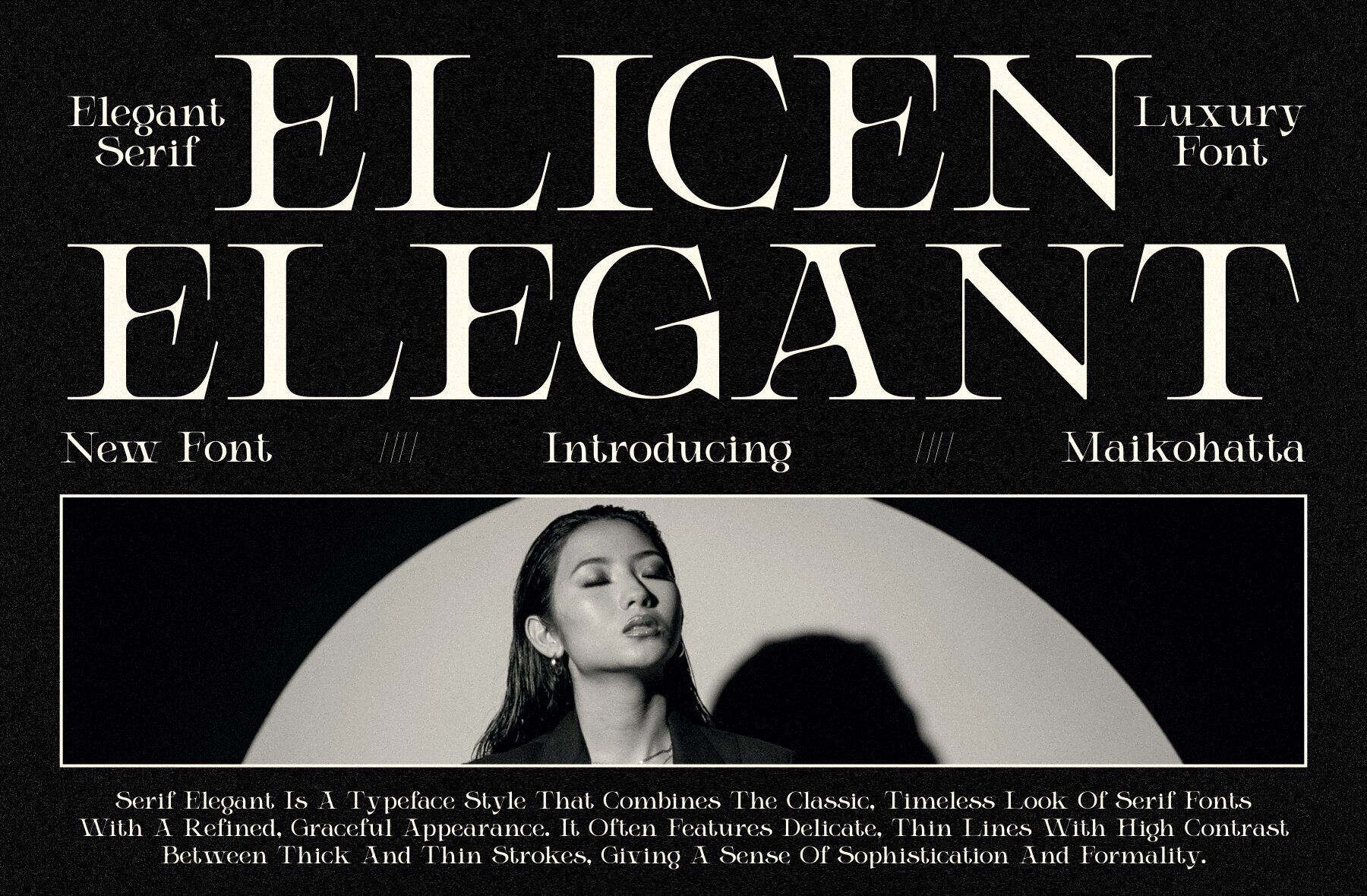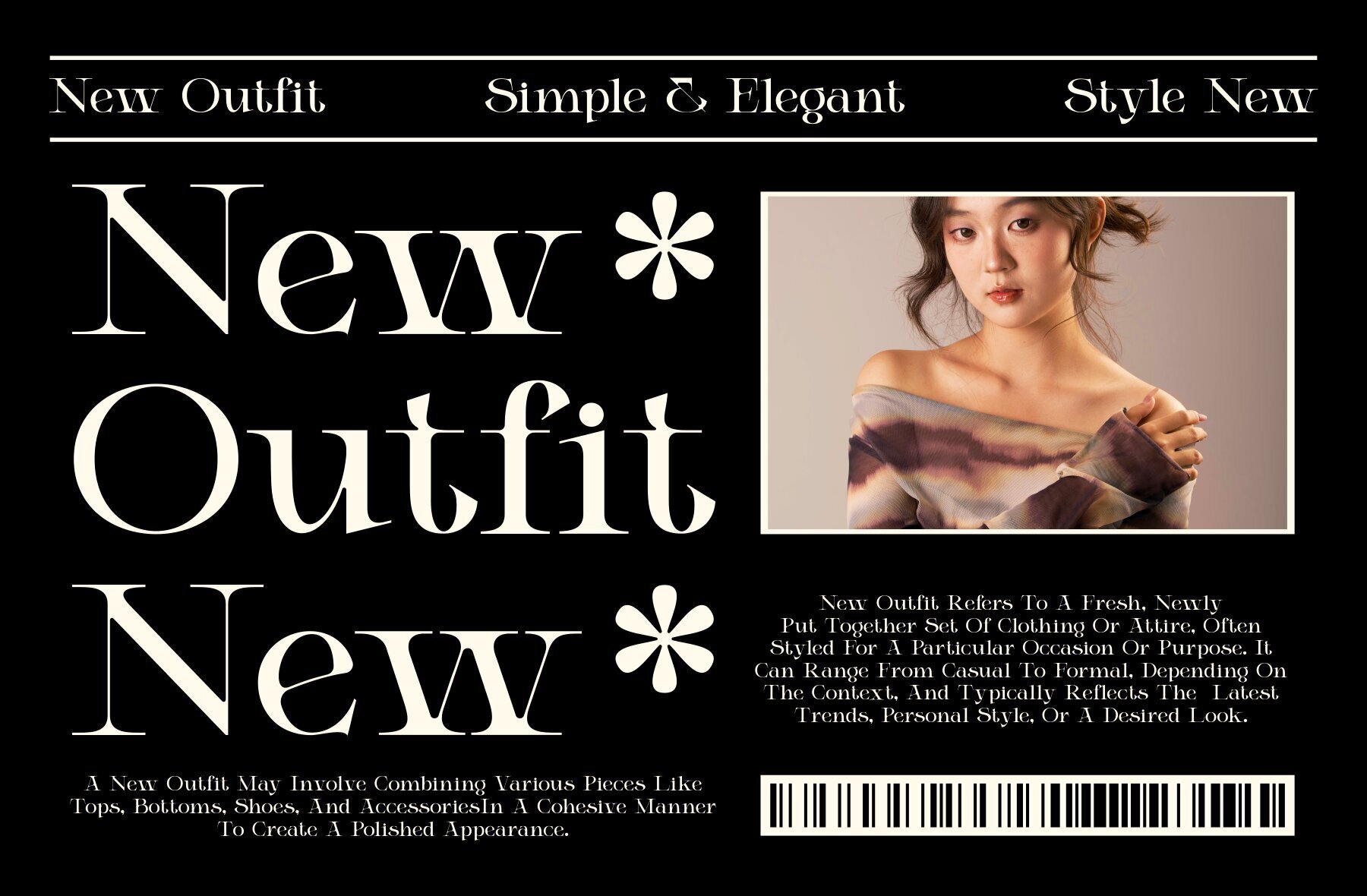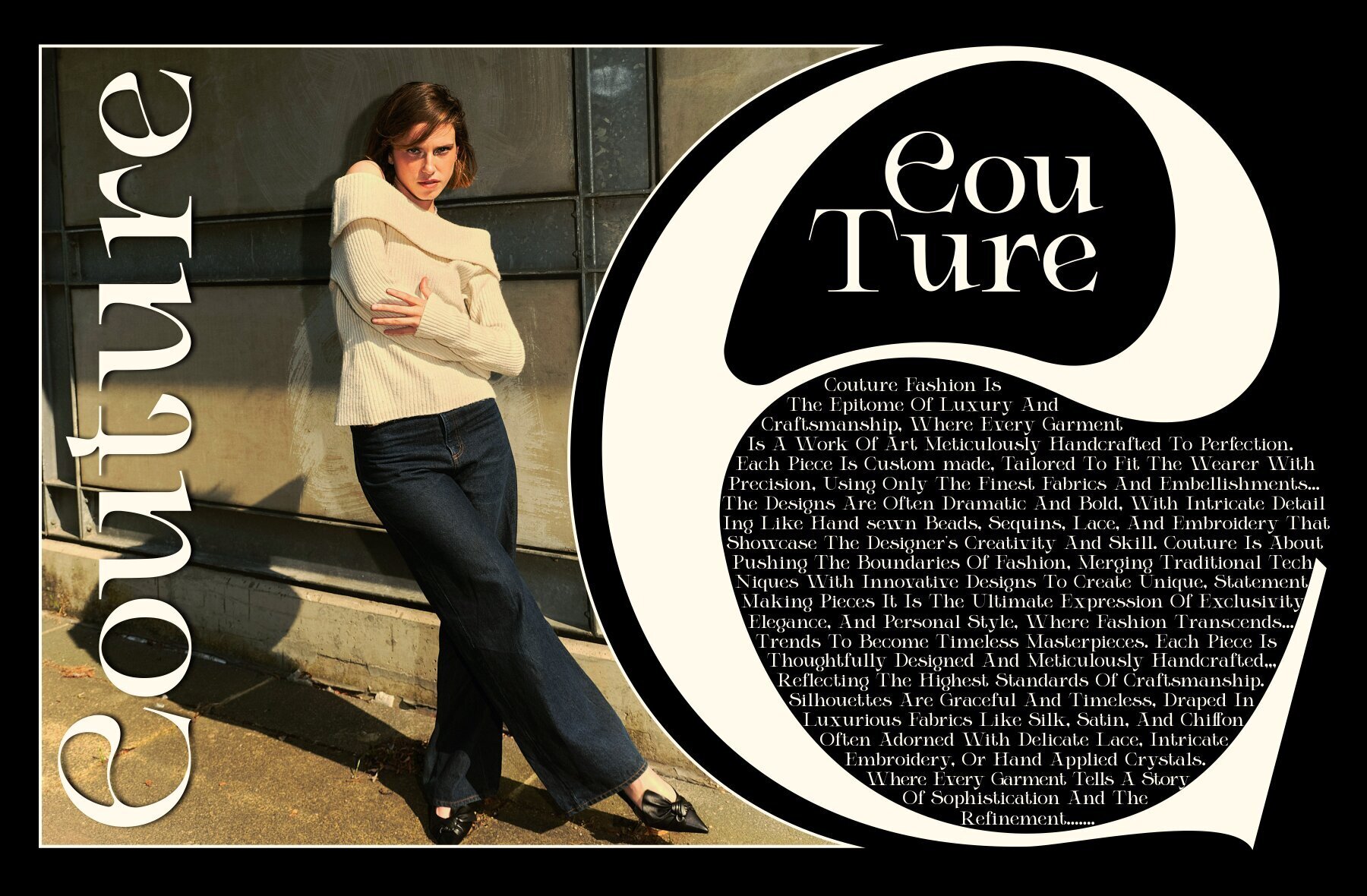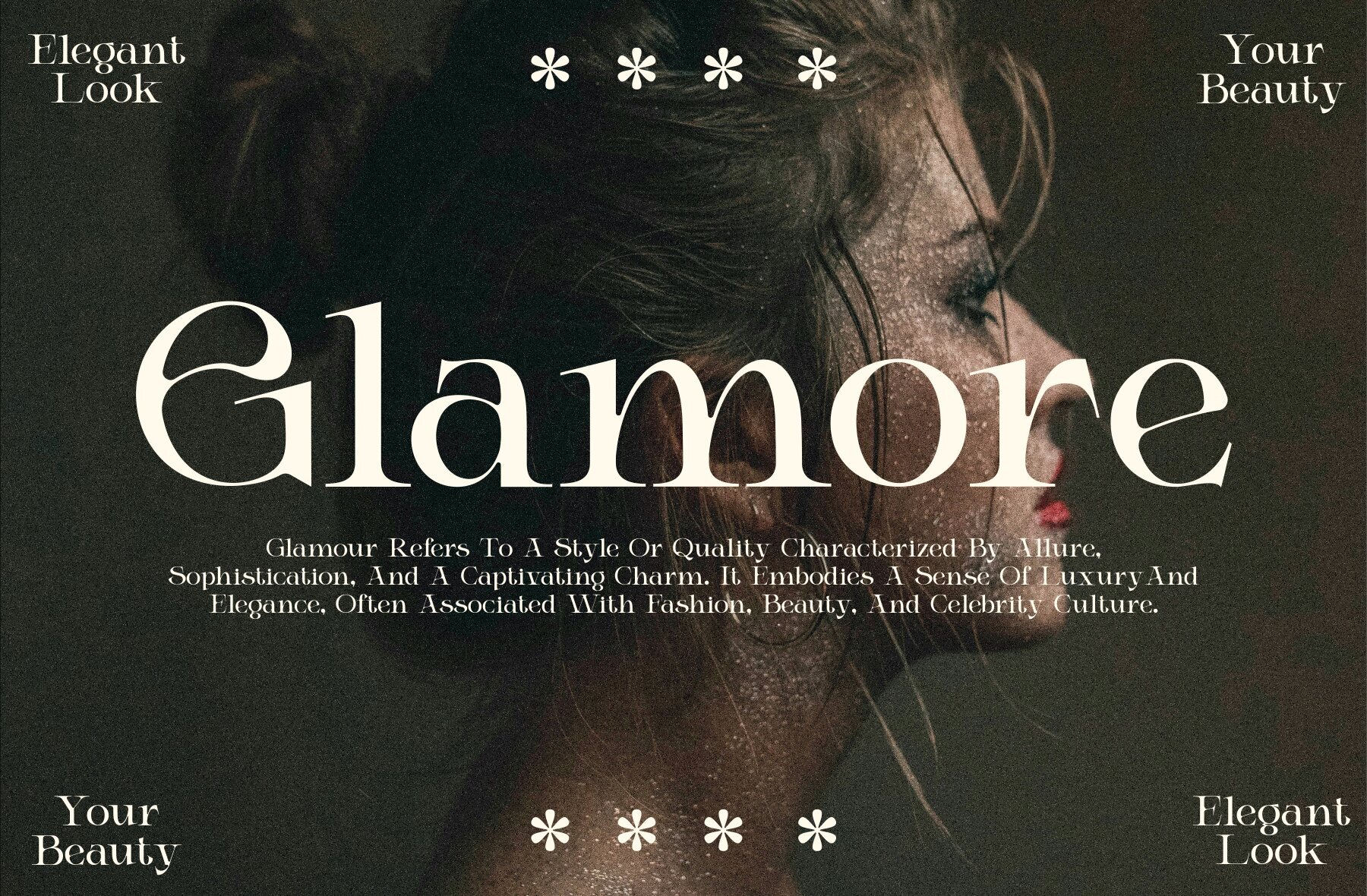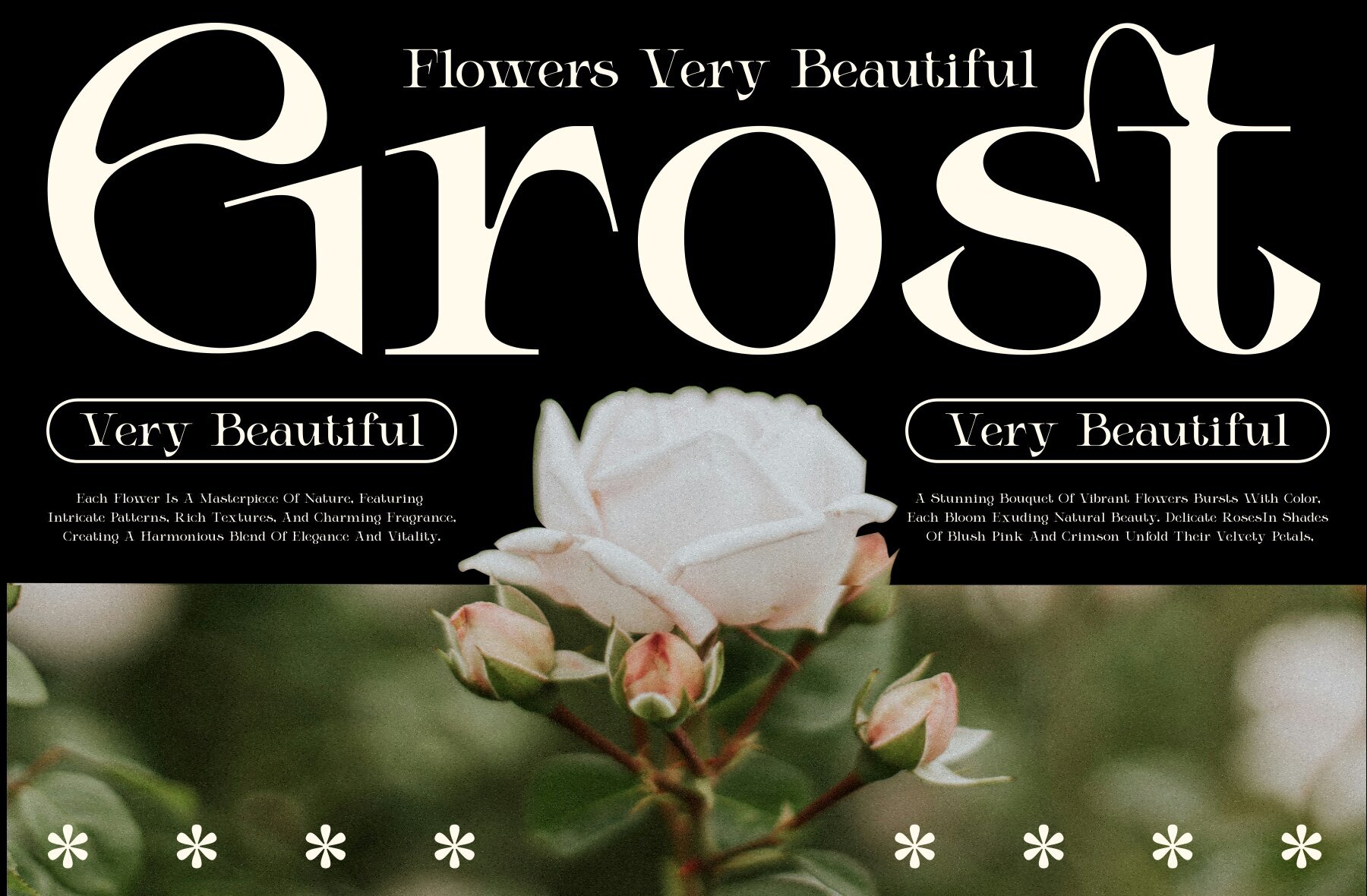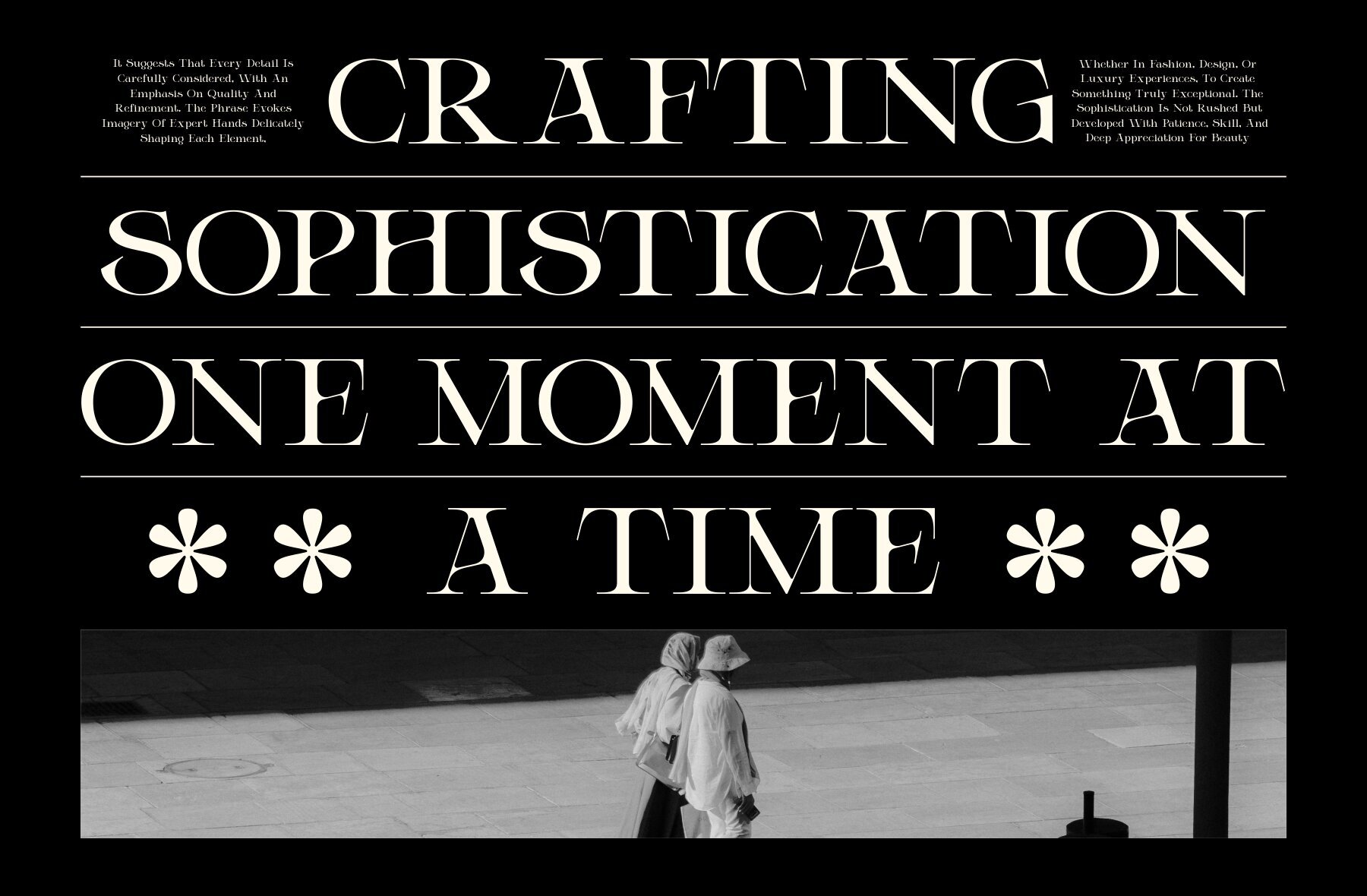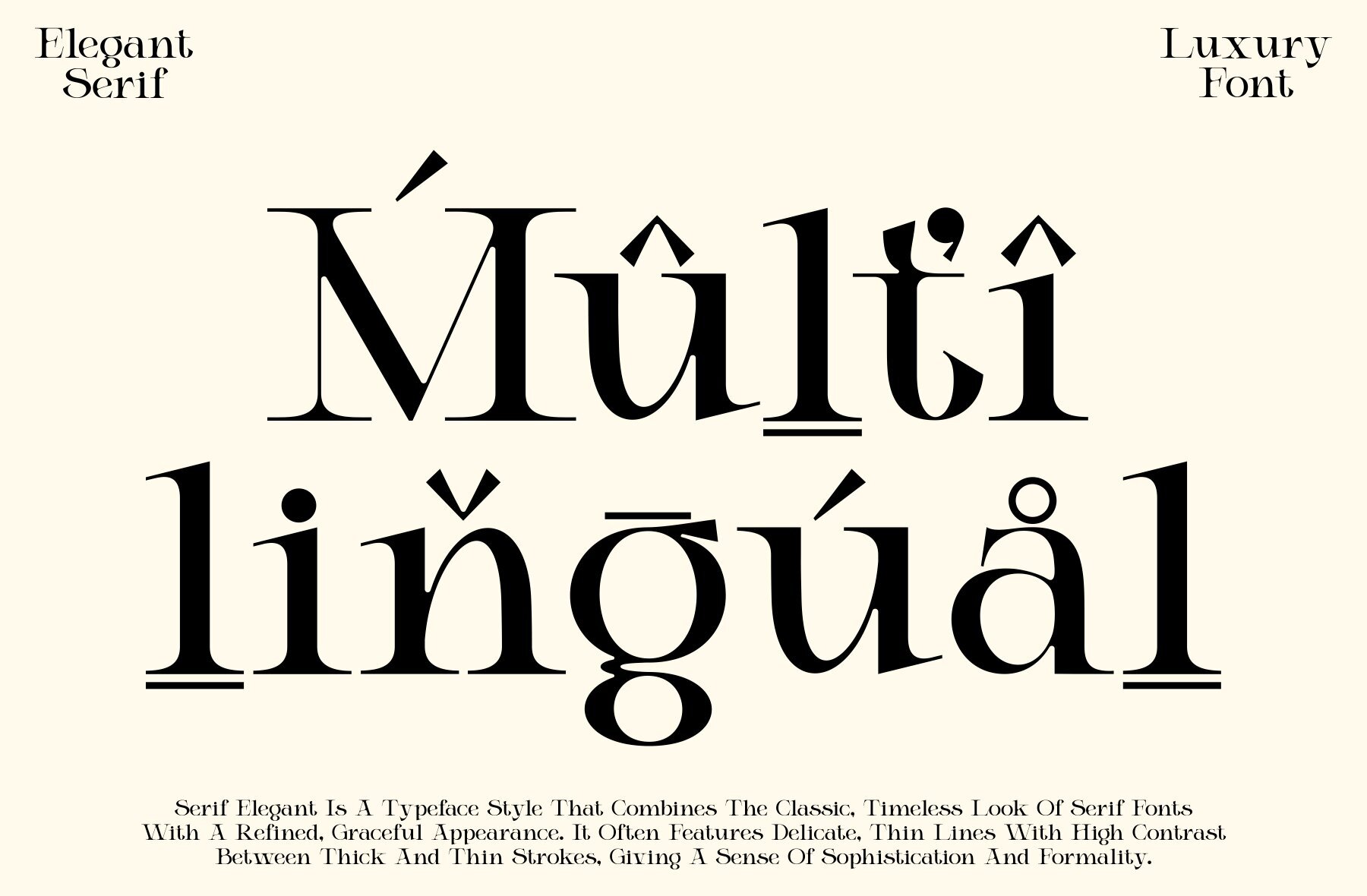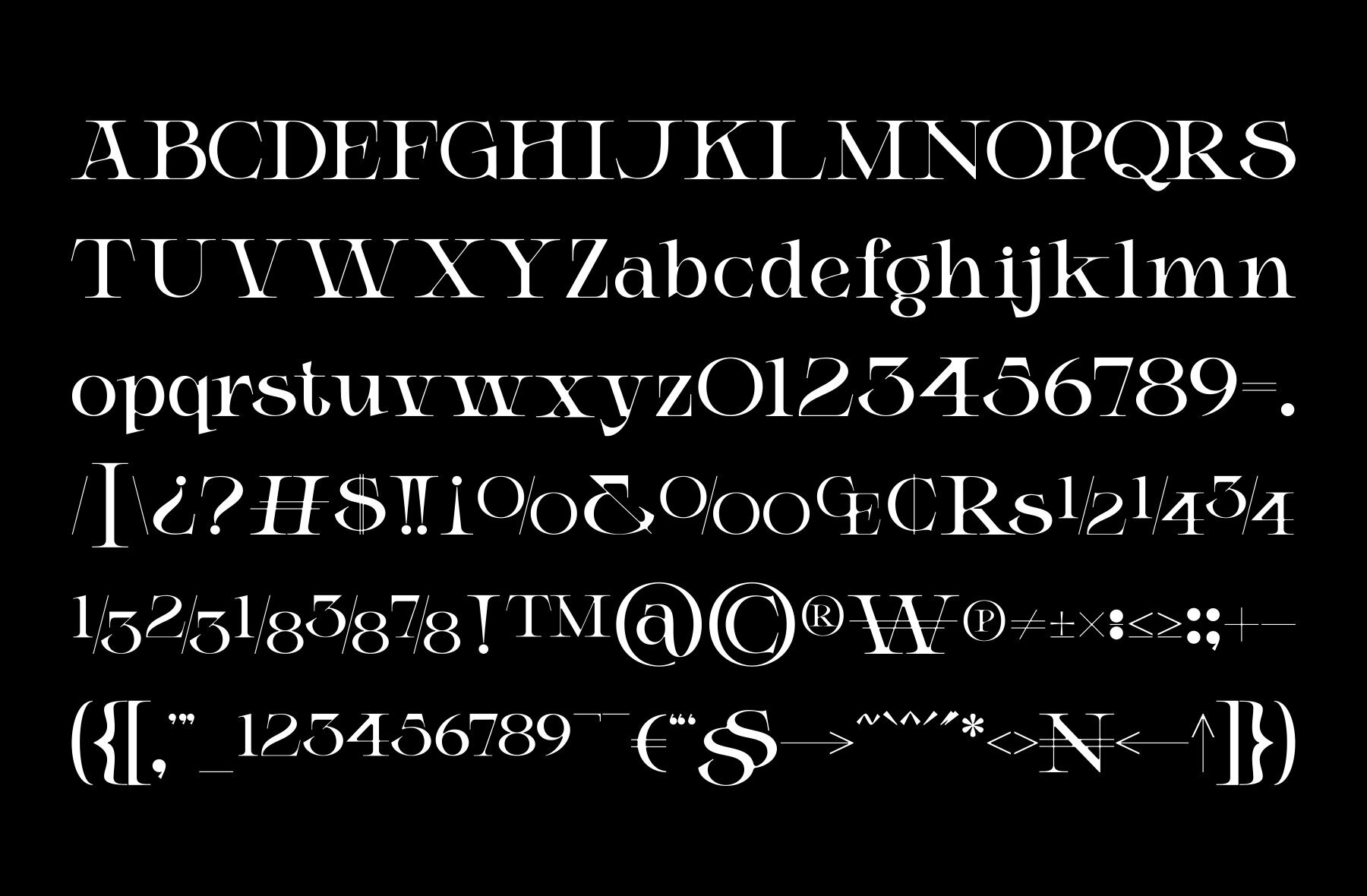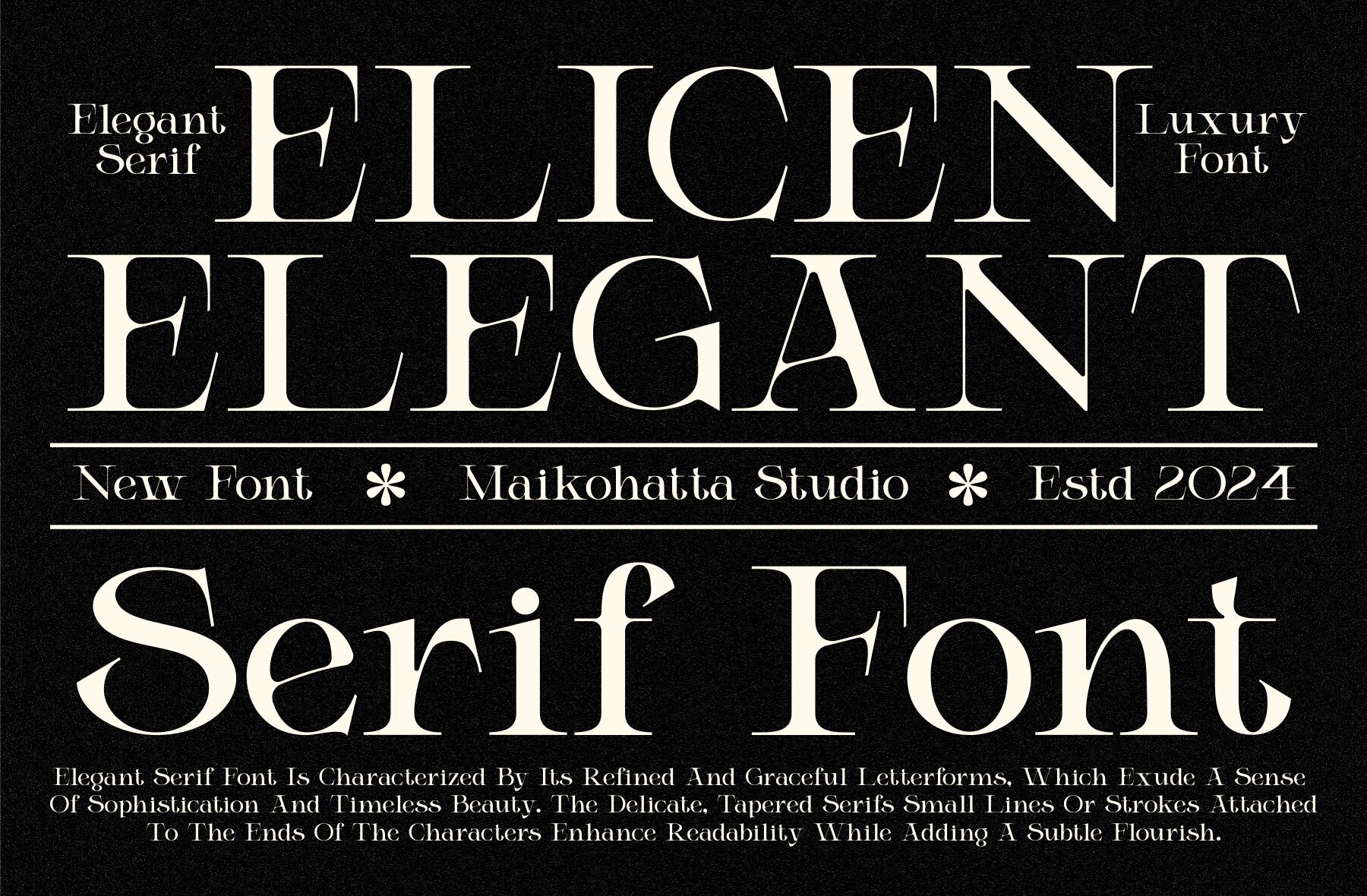
Elicen Font
ELICEN
Elicen is a sophisticated serif font that embodies luxury, elegance, and strength. Its design features a harmonious blend of thin and thick lines, smooth curves, and refined serifs. The font’s sharp corners and intricate details contribute to a highly aesthetic appearance, offering a touch of elegance and formality to any design.
Including a full set of uppercase and lowercase characters, Elicen supports multilingual texts, making it versatile for international projects. The font also boasts ligatures and alternates, allowing designers to create unique and personalized typography solutions. Whether used for branding, editorial design, or digital projects, Elicen is a perfect choice for those seeking sophistication and visual impact.